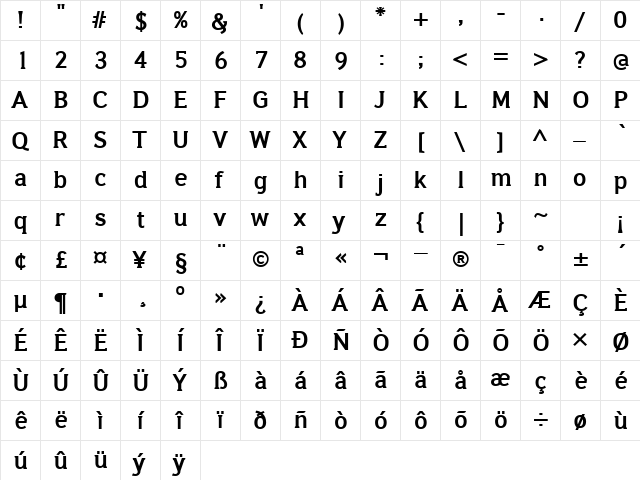
IdeologicaBold Regular
Design Context for IdeologicaBold Typeface
IdeologicaBold is a composed and adaptable typeface that performs quietly and consistently across a wide range of design contexts. The heavy weight commands attention and anchors typographic hierarchies.